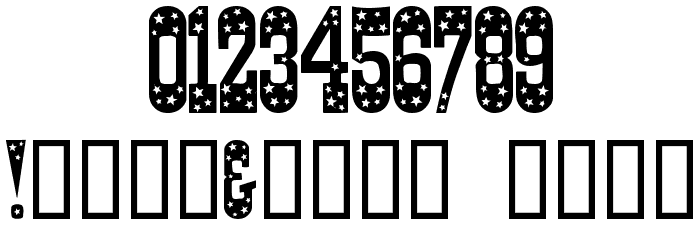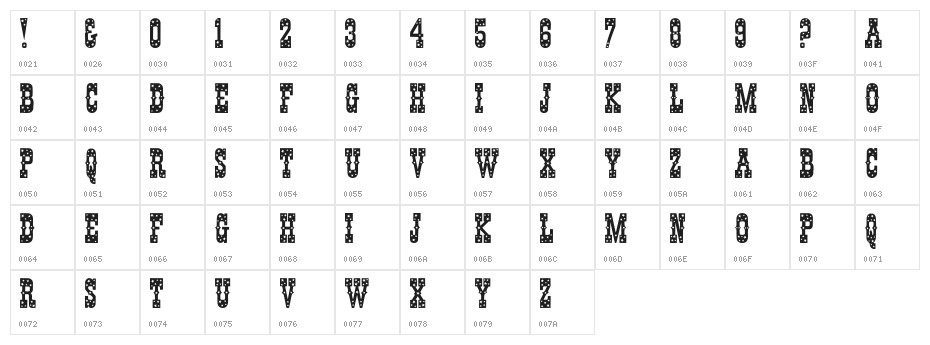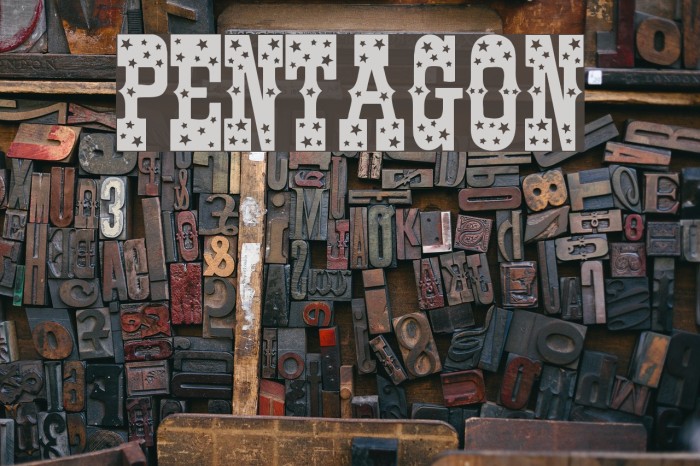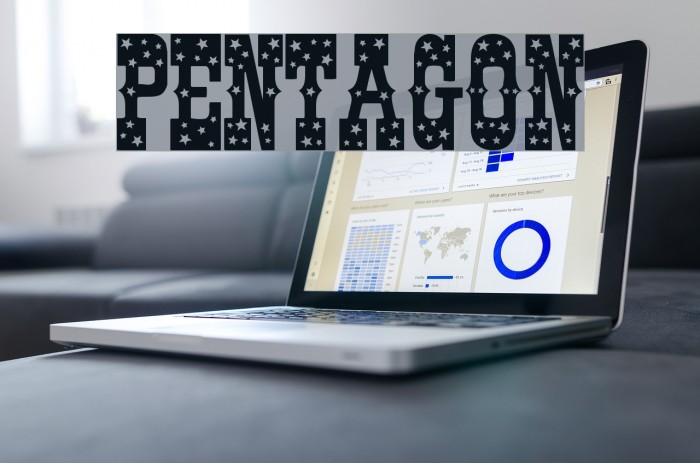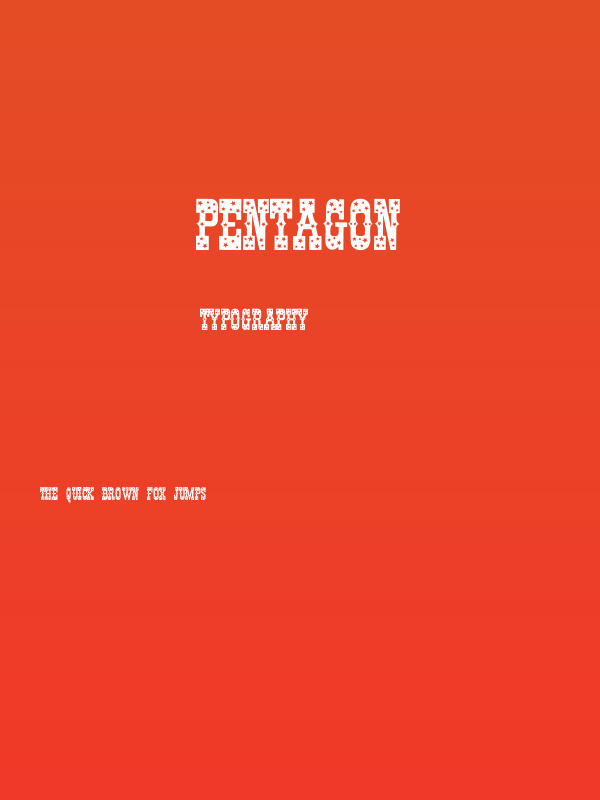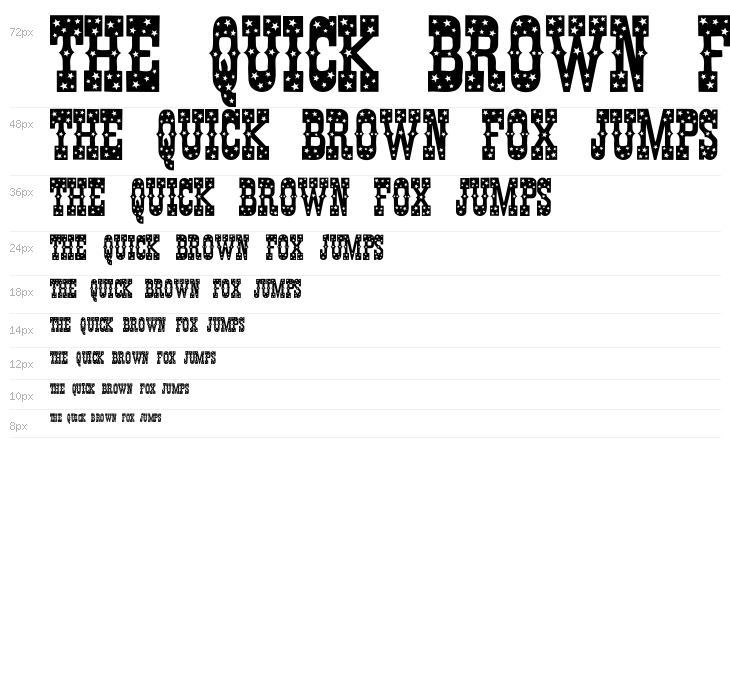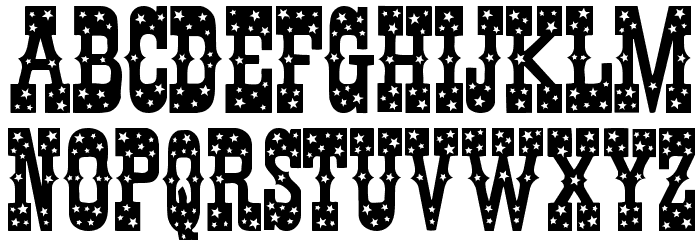
Pentagon Font
Pentagon Description
This decorative font features bold, blocky letters filled with a pattern of stars. The uppercase and lowercase letters maintain a consistent style, with each character showcasing a playful and eye-catching design. The numbers and special characters follow the same star-filled theme, creating a cohesive and visually striking appearance. The font's boldness and unique pattern make it ideal for projects that require a standout display typeface. Its whimsical and fun style is perfect for creative and festive designs.
| Proposed Projects | Great for party invitations, event posters, children's book covers, and festive banners. |